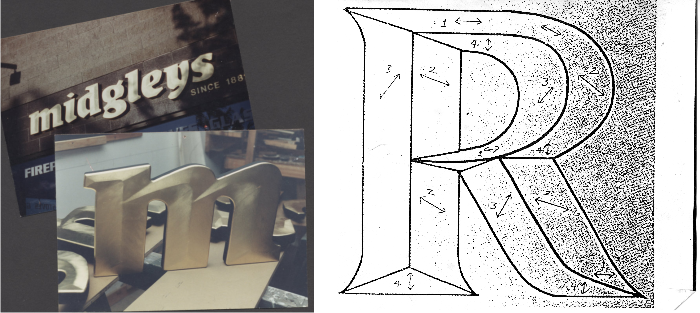
I was looking for a technique I have seen on a few boat names. Hand gilded name with a
v-carved look. The gold looks as if it is manipulated in 2 or 3 different directions. Very realistic. I actually had to walk up to one name and touch it to find out that it was not actually carved. I have been hand painting for 30 years. Any help on this technique would be greatly appreciated.
hand gilded boat name with v-carved effect
Re: hand gilded boat name with v-carved effect
Was probably just directional burnishing. Dan Seese wrote a good article on it (albeit on glass)
Noel Weber & I did this one a few weeks back. Depending on whether it's getting direct or indirect light, and what the light source is changes the effect where some areas are darker, others lighter etc.
Re: hand gilded boat name with v-carved effect
or if you're doing a surface gild... it could look like this. midgleys letters are 1.5" hdu flat cut.
after rereading your post henry...you asked for a v-carved look, not prismatic
Re: hand gilded boat name with v-carved effect
Andrew - is MING all 23K with different directions of burnish? It looks like the thin lines dividing the letters are 2k burnish too (?).